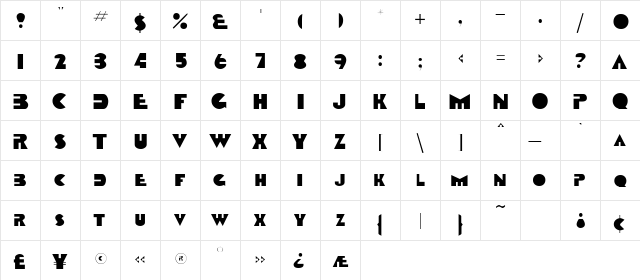
TobagoSCapsSSK Regular Free Font
Design Context for TobagoSCapsSSK
TobagoSCapsSSK is a composed and adaptable typeface that performs quietly and consistently across a wide range of design contexts.